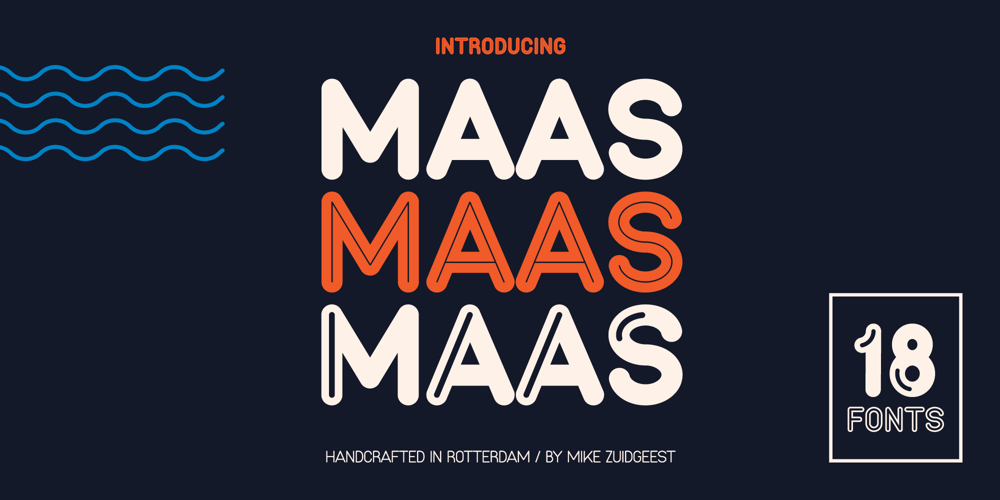
Maas Font Family was designed by Mike Zuidgeest and published by Mike Zuidgeest. Maas contains 18 styles and family package options. Introducing Maas, a new font collection designed by the passionate designer Mike Zuidgeest in Rotterdam. Each letter of the font was created in Illustrator and handcrafted to perfection. The font is named after the river de Maas, and it’s perfect for advertising and branding. As the designer, I’m thrilled with the result and can’t wait for you to try it out!